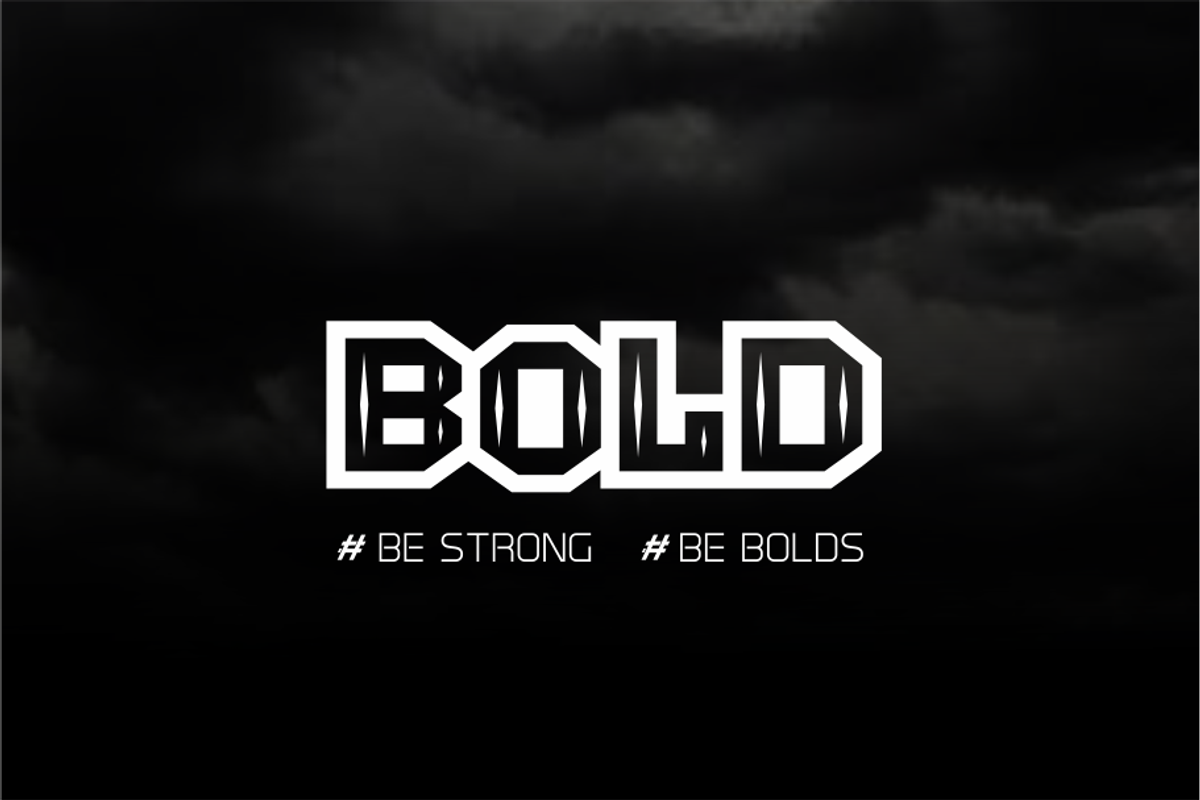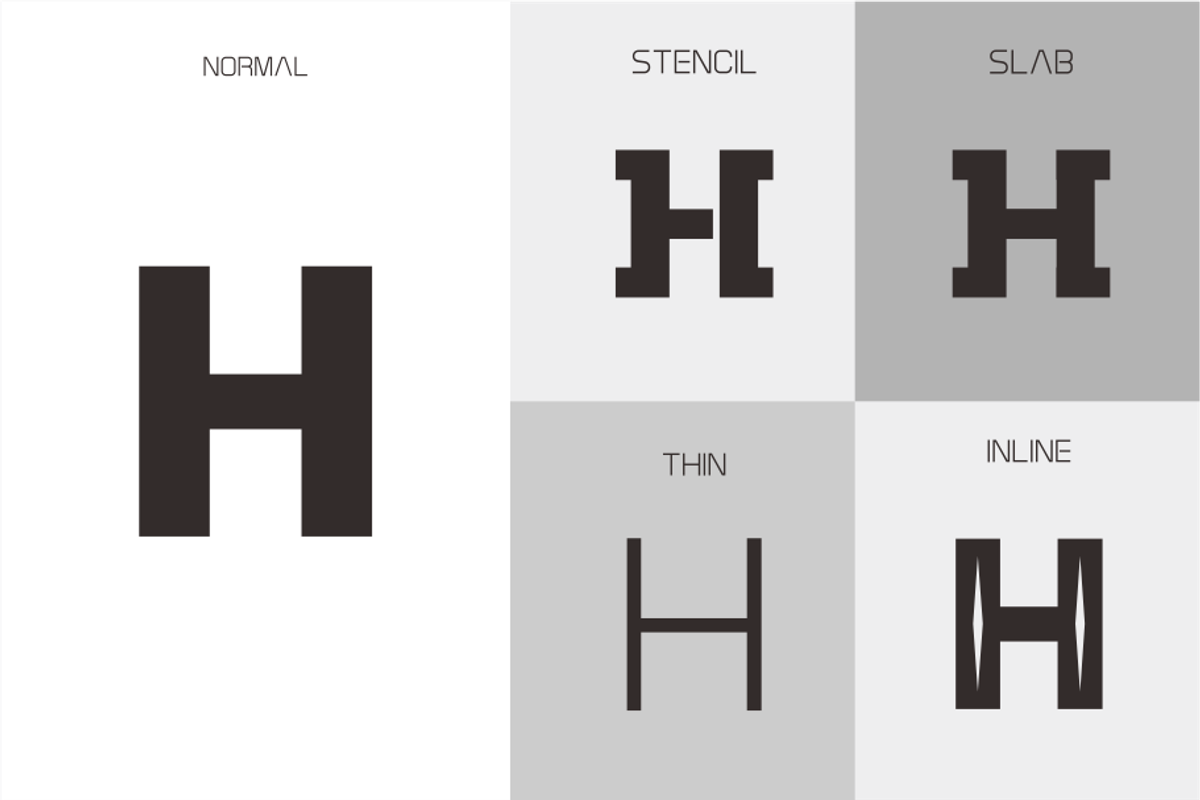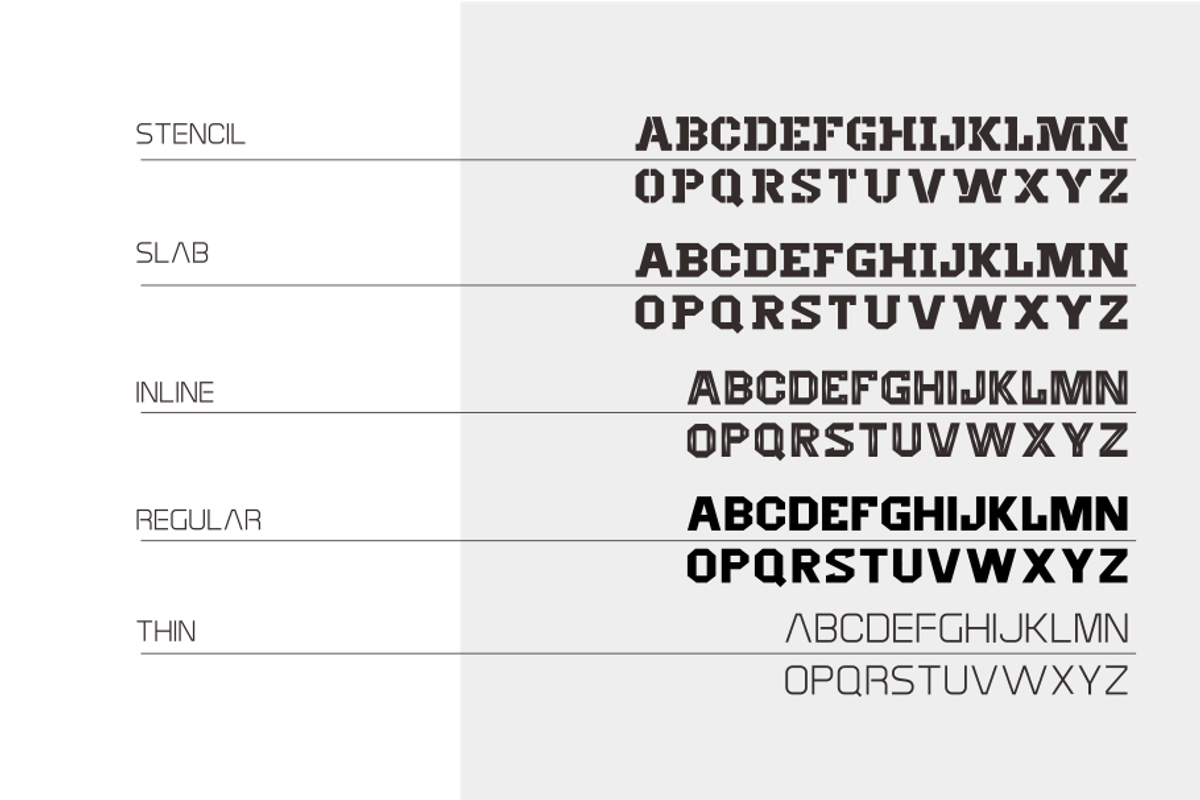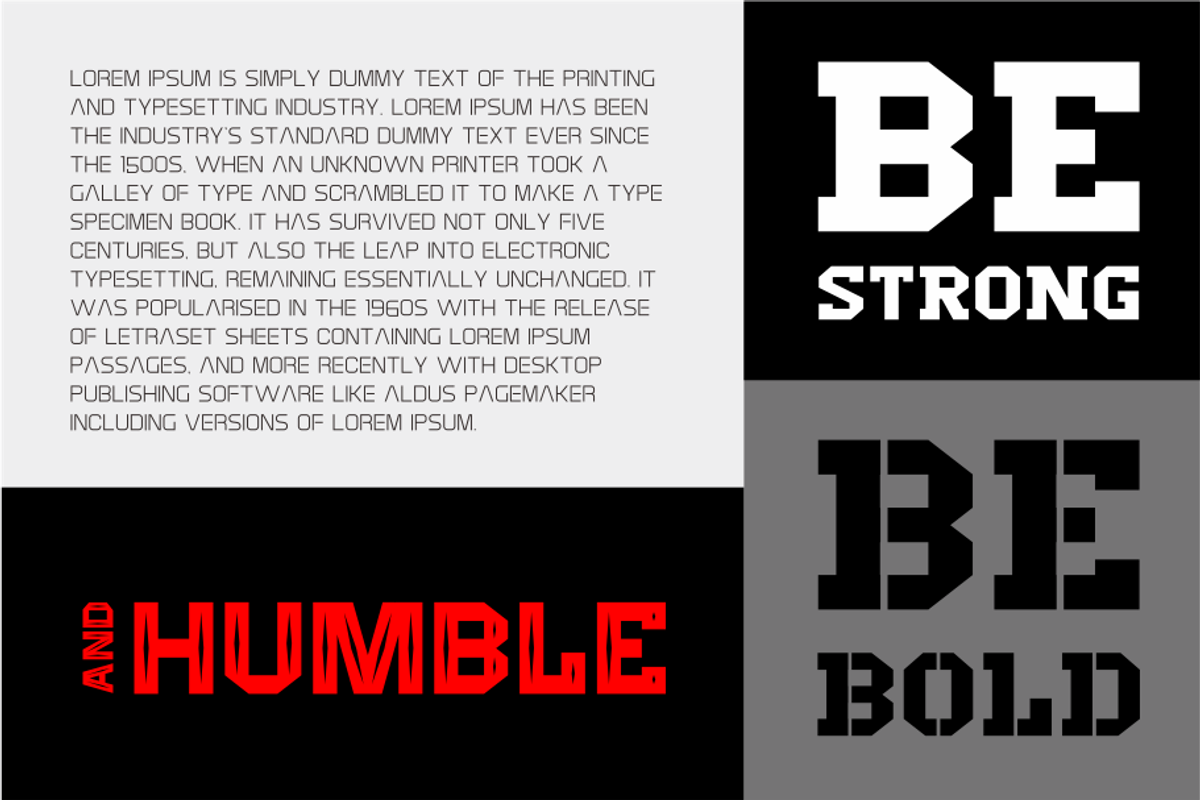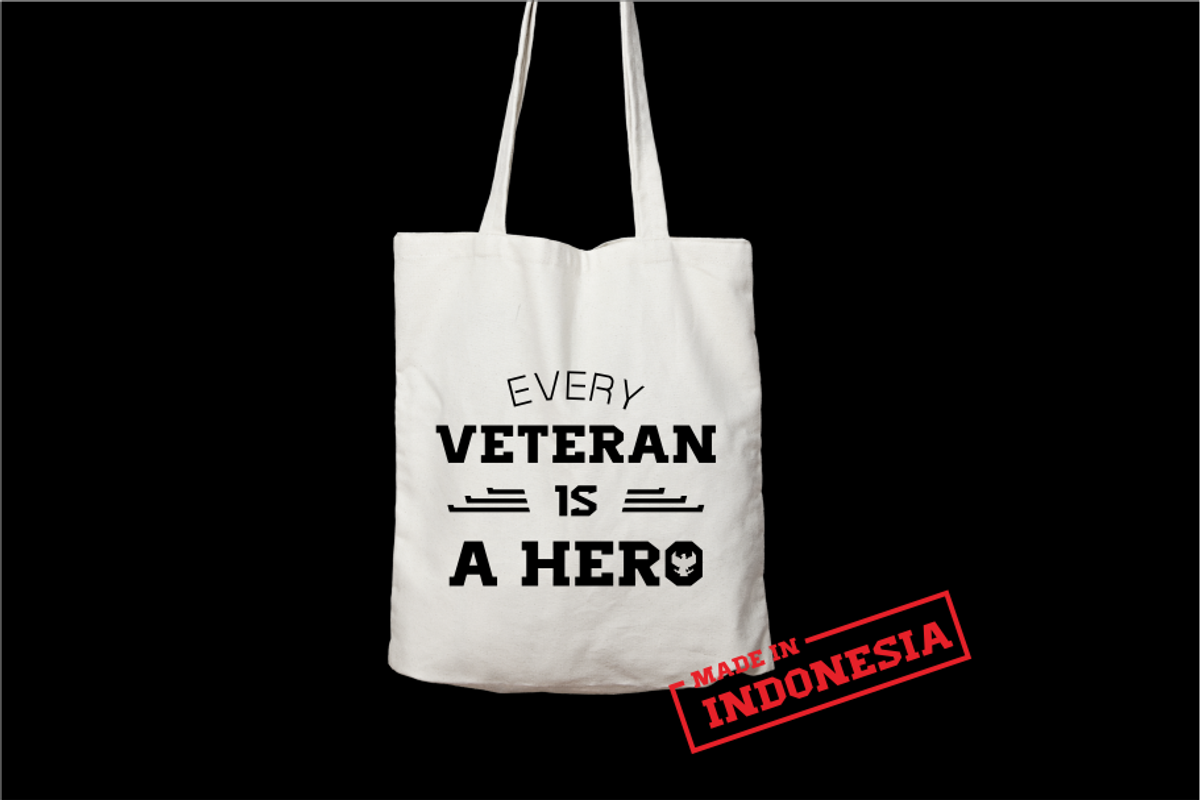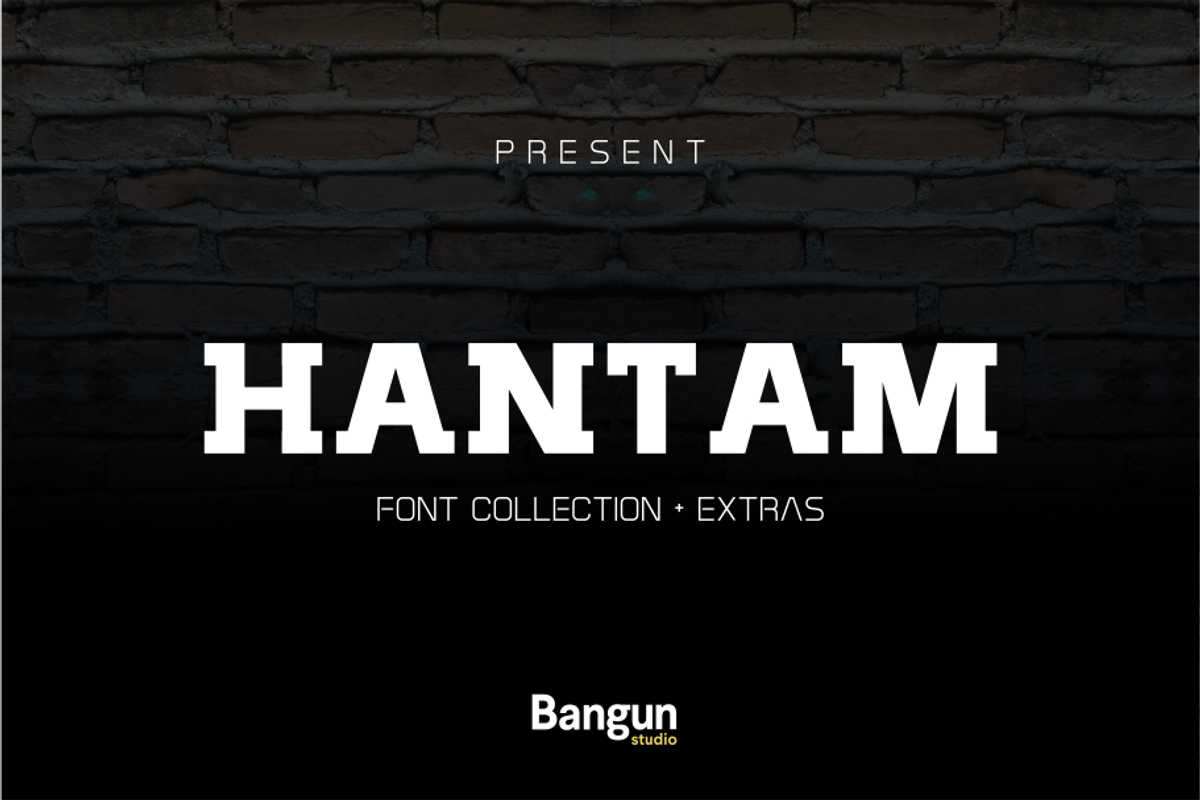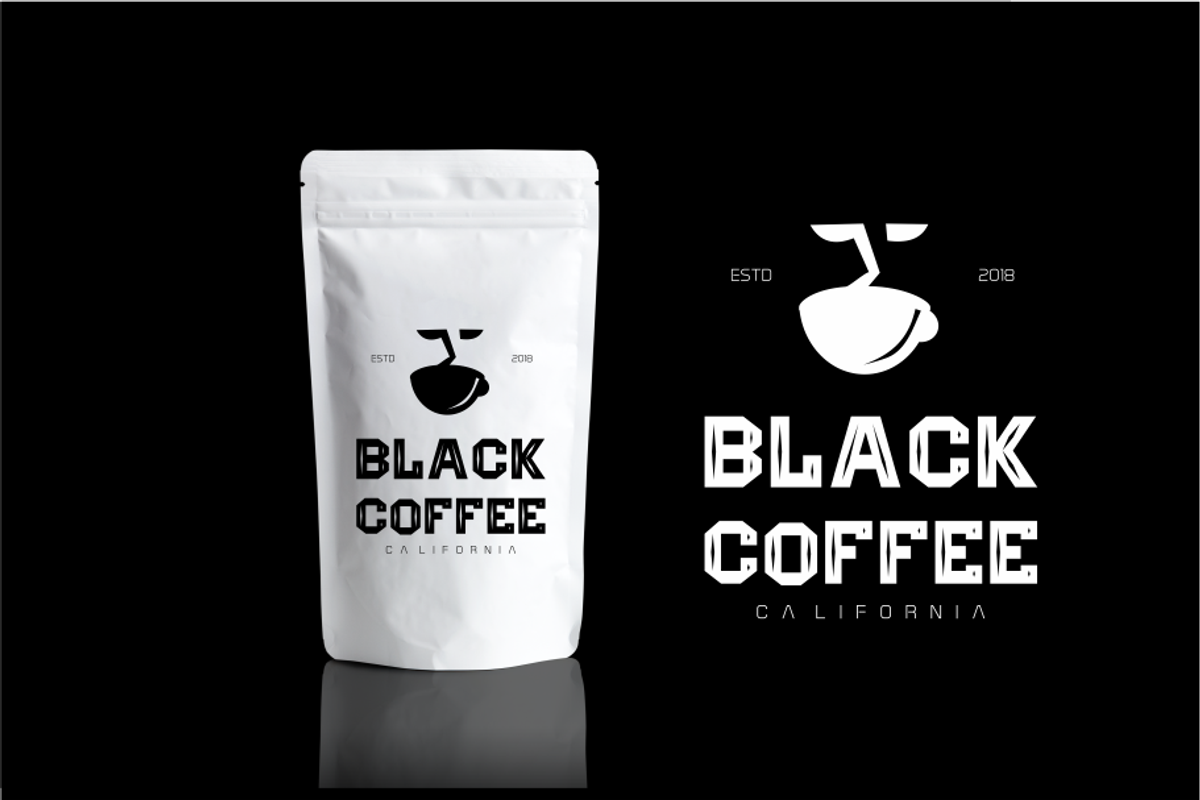
Hantam Font
A display font that gives you strong and bold typography. Hantam is a modern approach to the character set.
- Hantam Hantam Thin
- Hantam Regular
- Hantam Hantam extras
- Hantam Hantam slab
- Hantam Hantam Stencil
- Hantam Hantam inline
Hantam Font by Akdesain fits naturally into Branding, posters, packaging, typography.